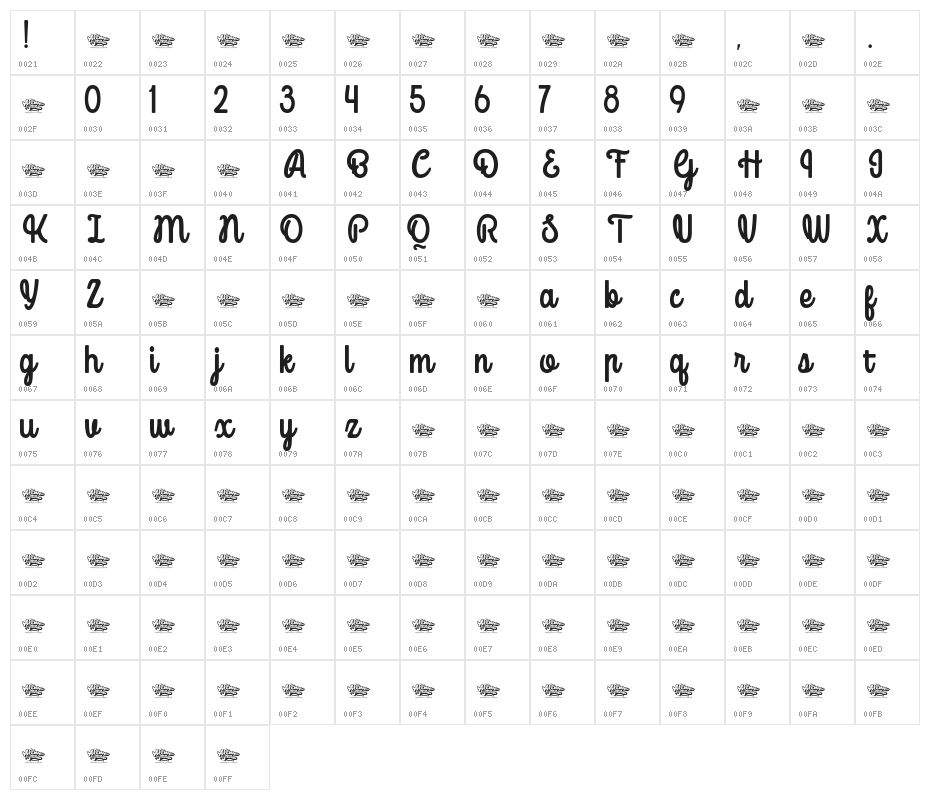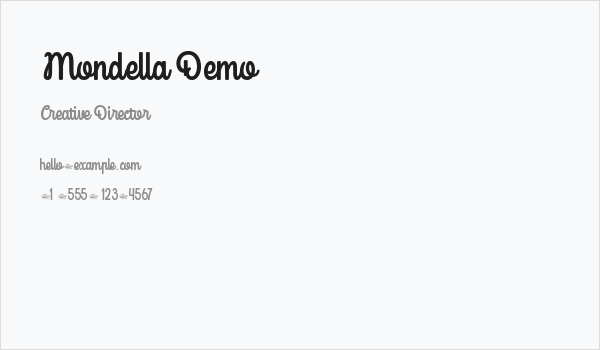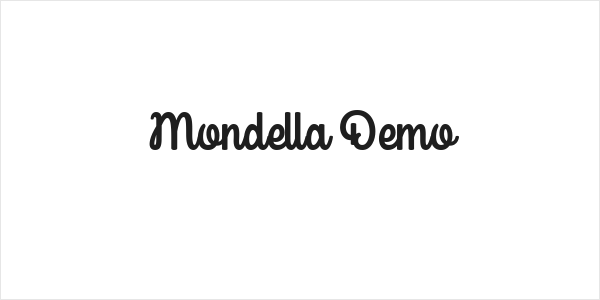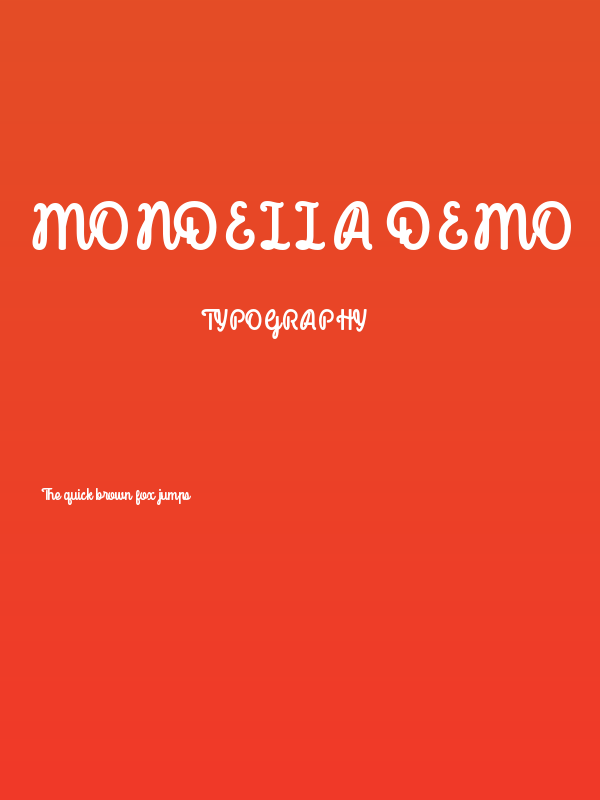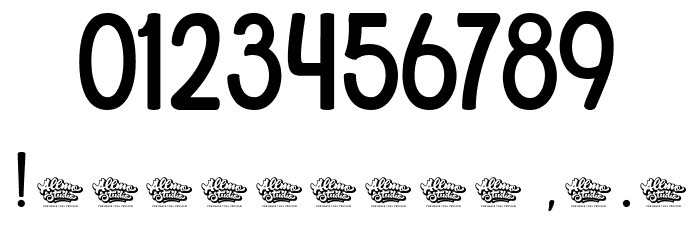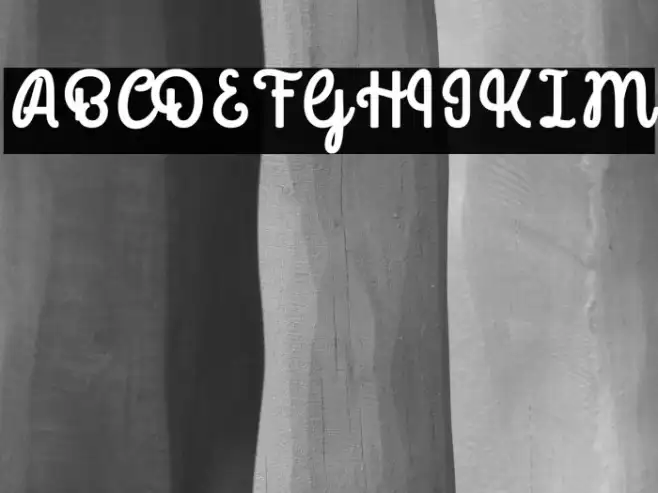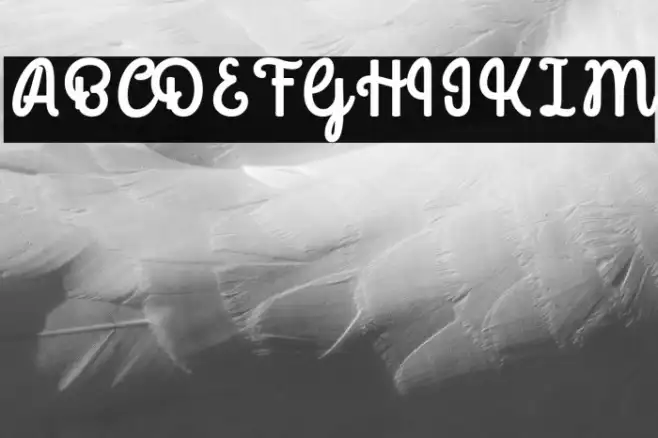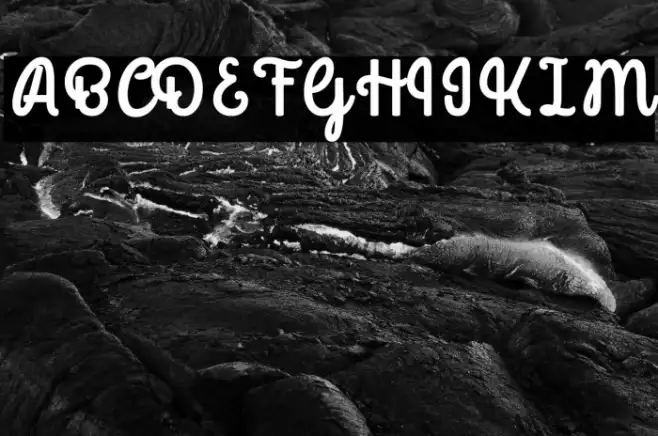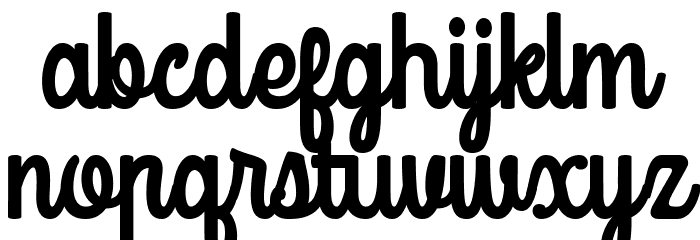
Mondella Demo Font
Mondella Demo Description
This font features a playful and bold script style with a handwritten feel. The characters are rounded and connected, giving it a fluid and continuous appearance. The uppercase letters have a whimsical quality, while the lowercase letters maintain a consistent flow. The numbers are clear and bold, matching the overall style of the alphabet. Special characters like the exclamation mark and ampersand are designed with the same playful curves, adding to the font's cohesive look. This font is ideal for projects that require a fun and informal touch.